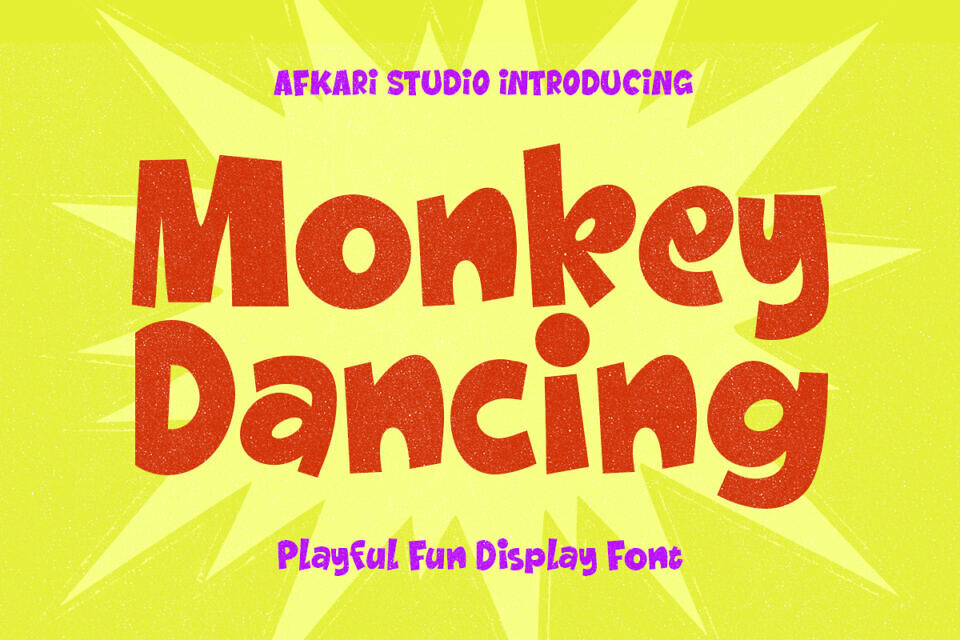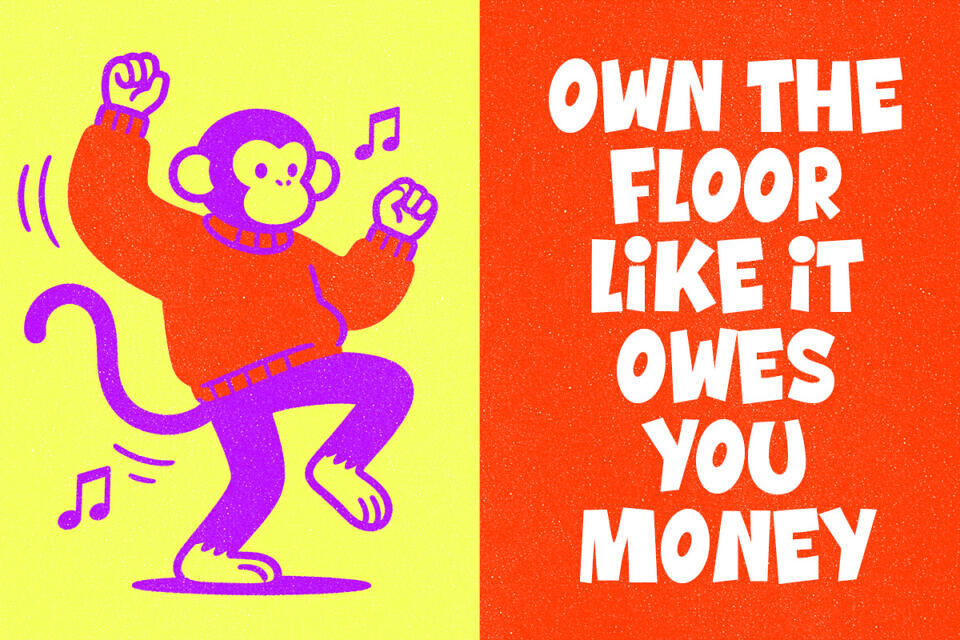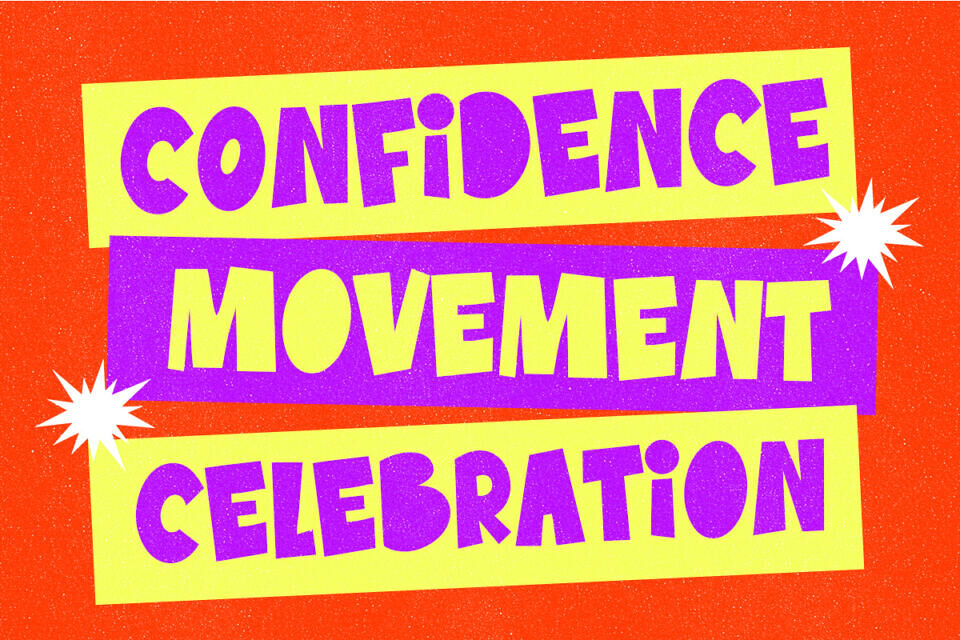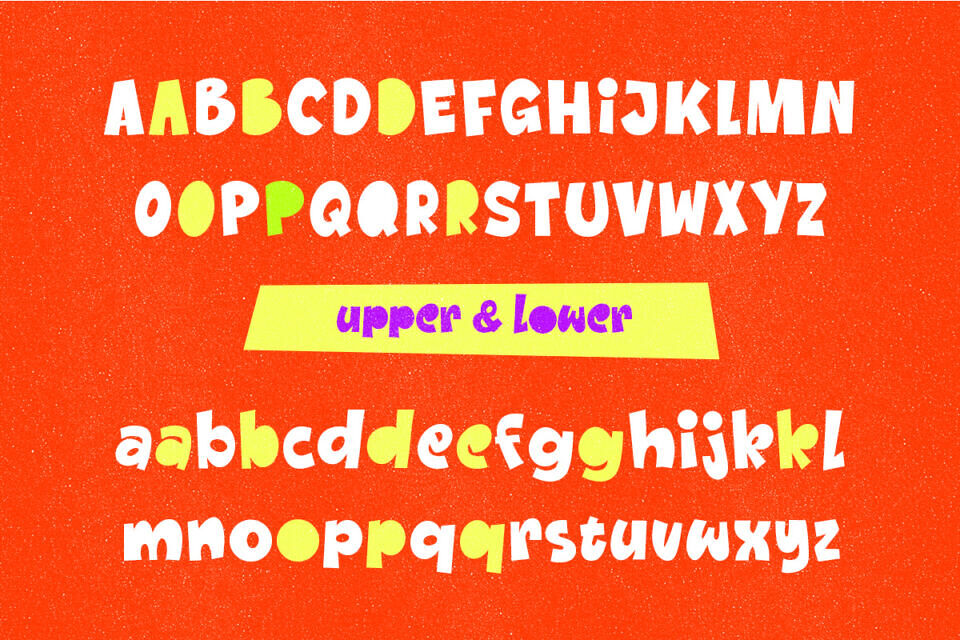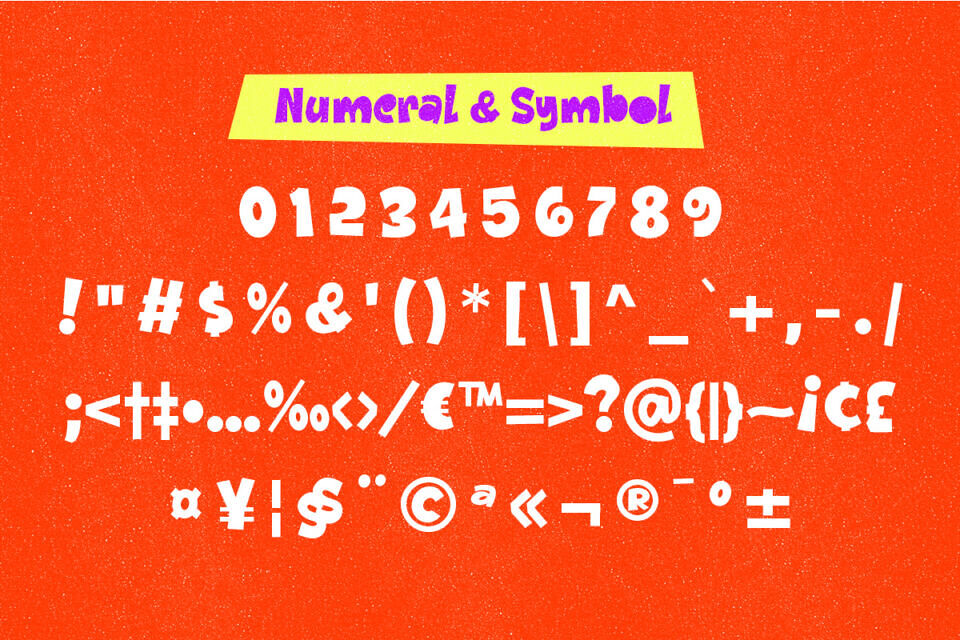
Monkey Dancing Font
Monkey Dancing is a playful fun display font designed to bring cheerful energy and lively personality into your creative projects. With bouncy letterforms and friendly character shapes, this font instantly creates a joyful and eye-catching appearance.
Inspired by fun, movement, and playful expression, Monkey Dancing is perfect for designs that need a happy and energetic tone while still maintaining strong readability for headlines and branding. It works beautifully across both digital and print projects. Whether used for kids branding, posters, packaging, or social media graphics, Monkey Dancing adds warmth, fun, and creative charm to every design.